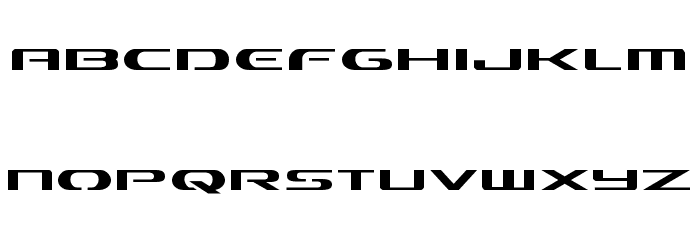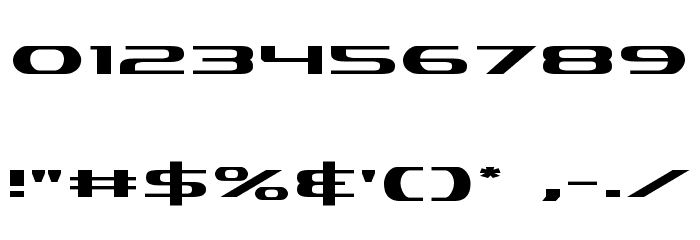
Alpha Men Font
This font features a futuristic and bold design, characterized by its geometric shapes and sharp angles. The uppercase letters are distinct with a strong presence, while the lowercase letters maintain a consistent style that complements the overall aesthetic. The numbers are equally bold, ensuring readability and impact. Special characters are designed with the same attention to detail, providing a cohesive look across all elements. This font is ideal for projects that require a modern and dynamic appearance.
A bold, futuristic font with geometric shapes and sharp angles.
- Proposed Projects: Ideal for sci-fi themed designs, technology branding, video game titles, and modern advertising.